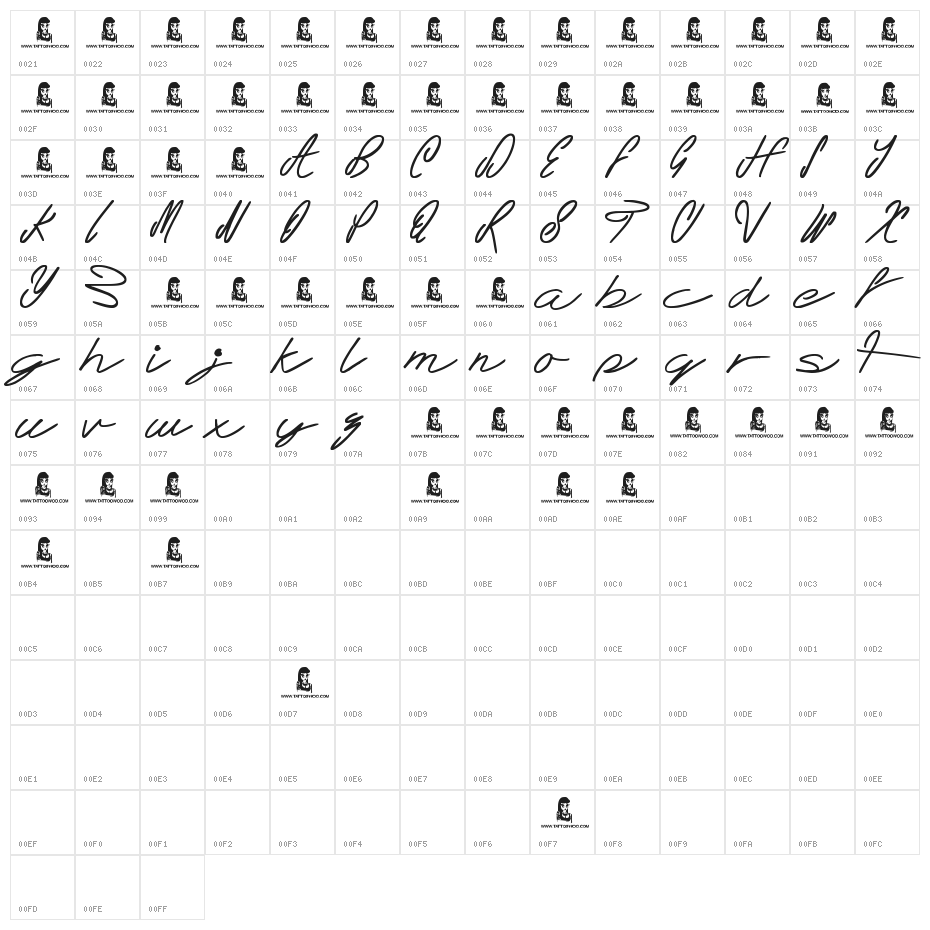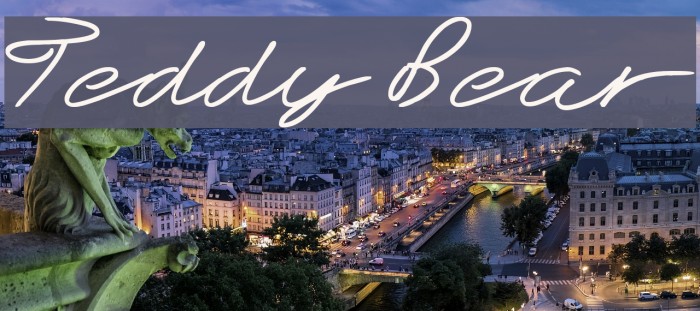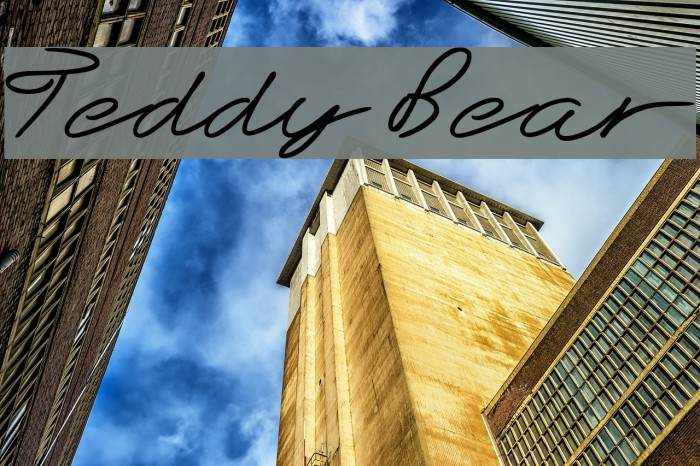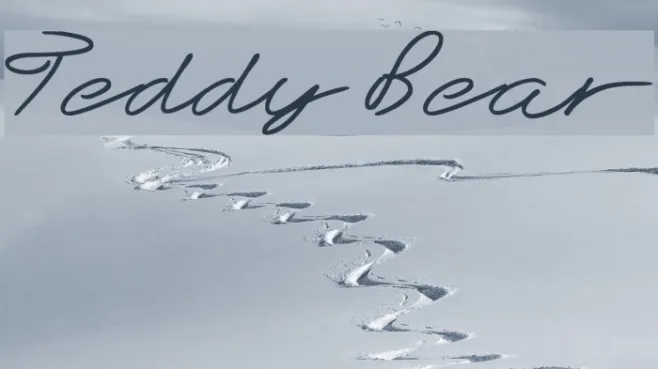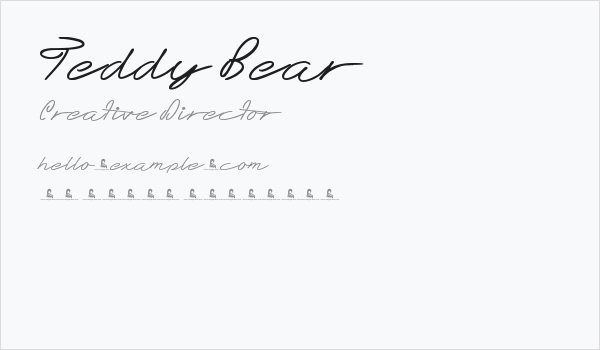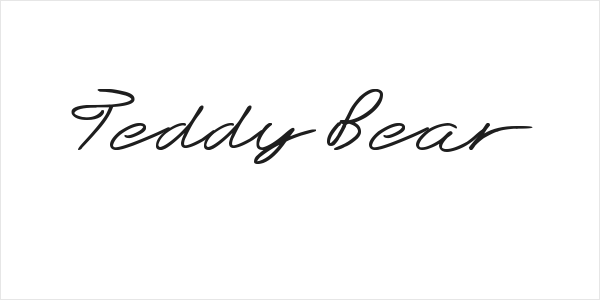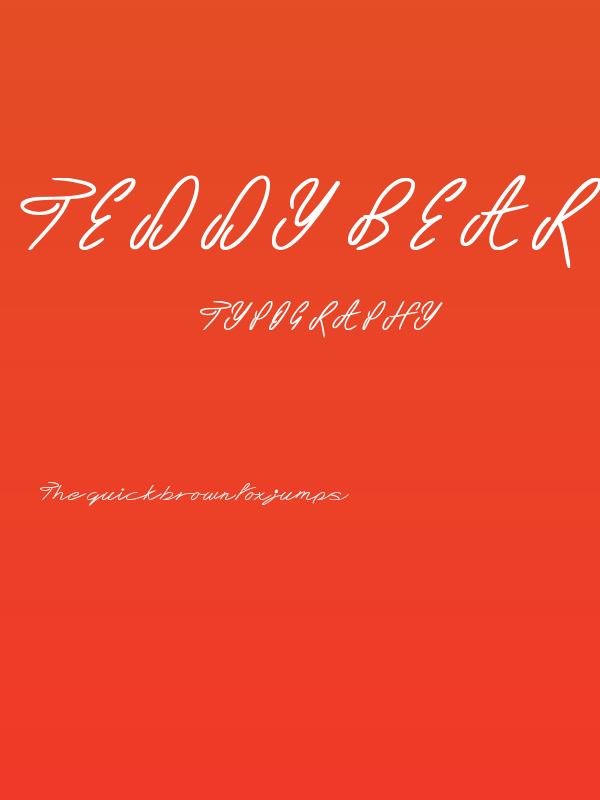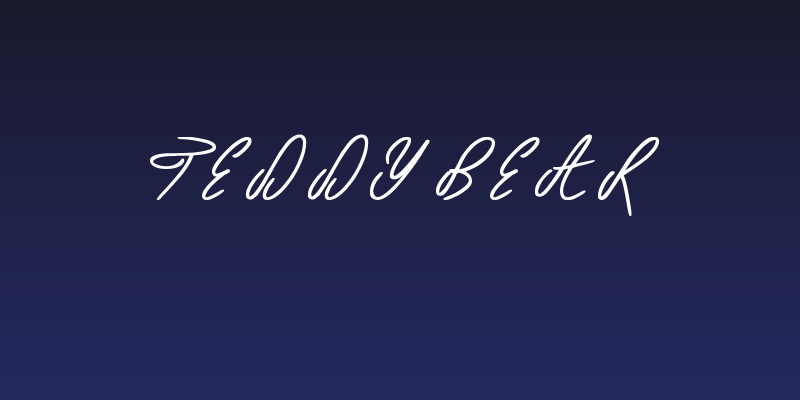
Teddy Bear Font
Teddy Bear Description
This font exhibits a flowing, cursive style with elegant, sweeping strokes that give it a handwritten appearance. The letters are interconnected, creating a seamless and fluid look. The uppercase letters are bold and expressive, while the lowercase letters maintain a consistent, graceful form. The font's overall aesthetic is both sophisticated and approachable, making it suitable for a variety of creative applications. The characters are well-balanced, with a slight slant that enhances the script's dynamic quality. This font is ideal for projects that require a personal touch or a sense of elegance.